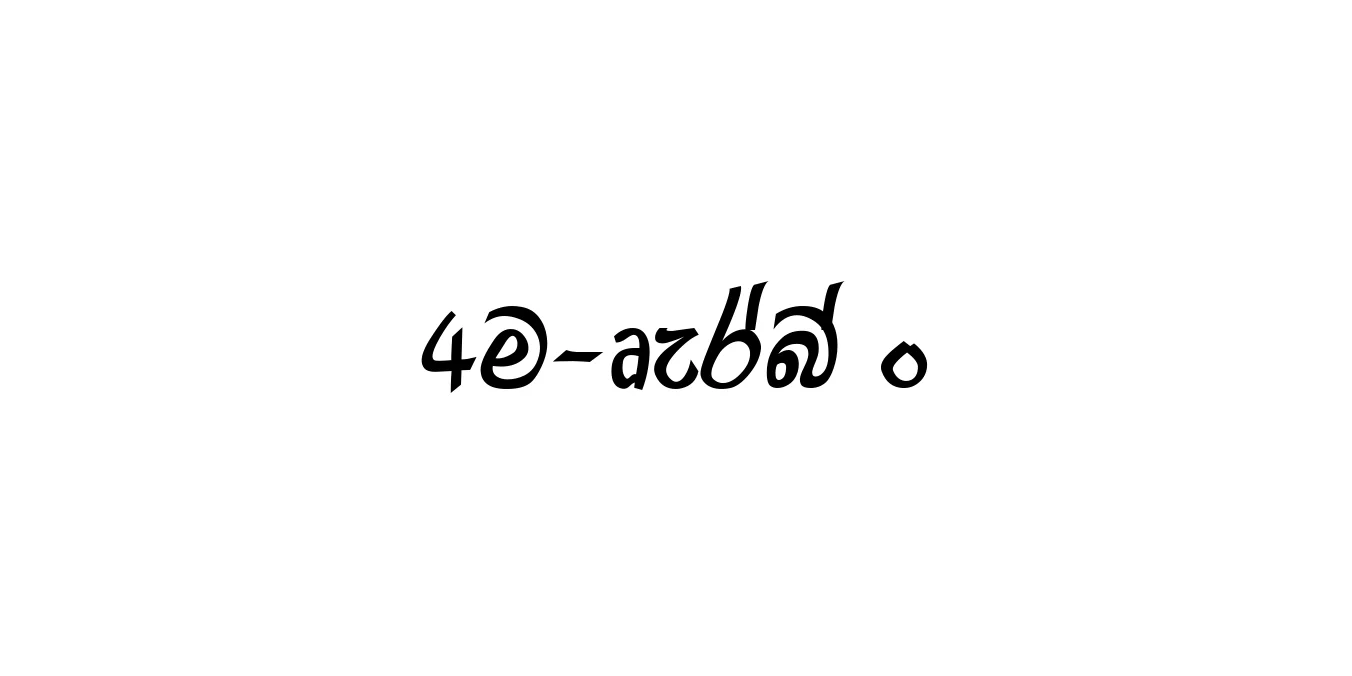
4u-Derana x
Designed by 4U Software
| Category | Sinhala / Display |
| Designer | 4U Software |
4u-Derana x is a distinctive Sinhala typeface that belongs to the widely acclaimed 4U font family, specifically designed to cater to the needs of the Sri Lankan creative industry. It breaks away from traditional formal scripts by offering a more stylized and contemporary look, making it a favorite among graphic designers for local digital and print media projects.
The font is characterized by its bold weight and unique artistic curves, which provide a high level of visual impact. Because of its decorative nature, it is most effective when used for headlines, title cards, and promotional branding where capturing the viewer's attention is the primary objective, ensuring that the Sinhala script looks modern and professional.
4u-Derana x Best Uses
Ideal for bold titles in newspapers, magazines, and blogs.
Perfect for event flyers and promotional materials requiring high visibility.
Great for creating engaging quote graphics and YouTube thumbnails in Sinhala.
Frequently used for television lower-thirds and program titles.